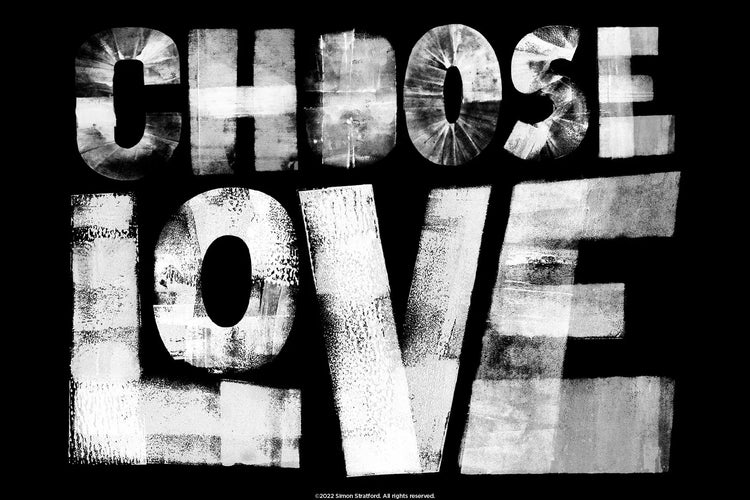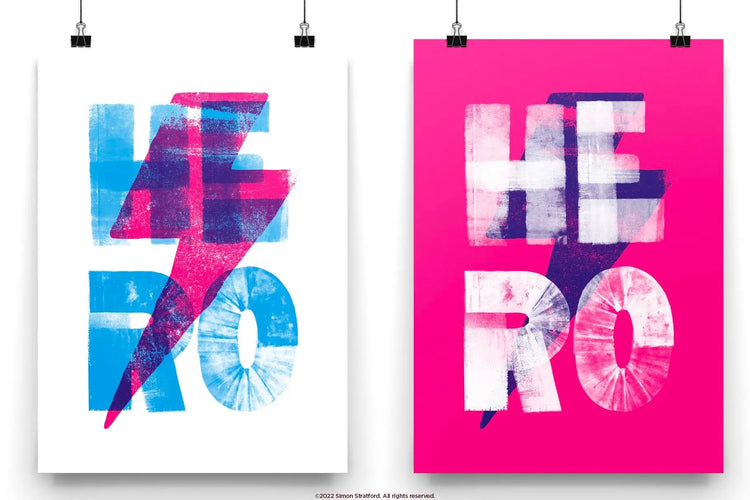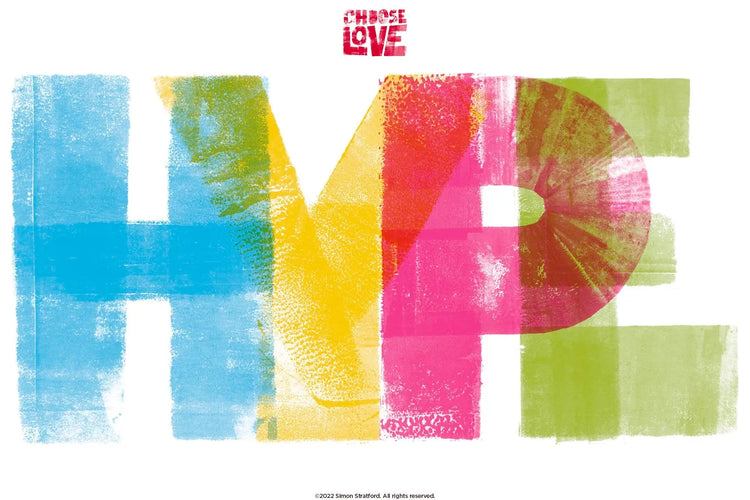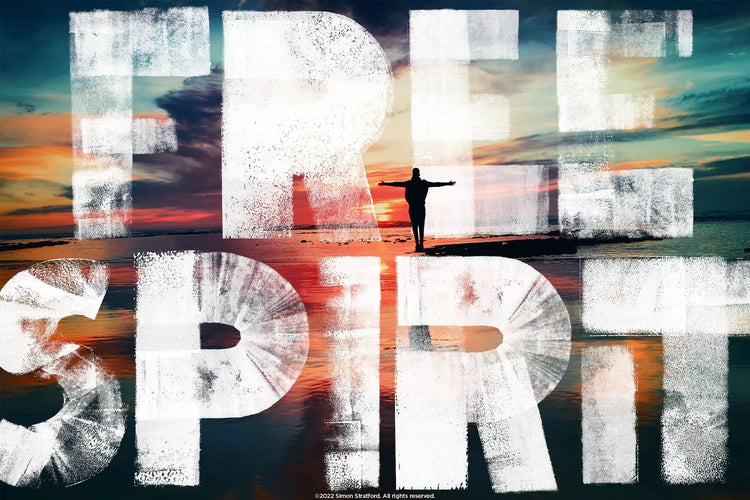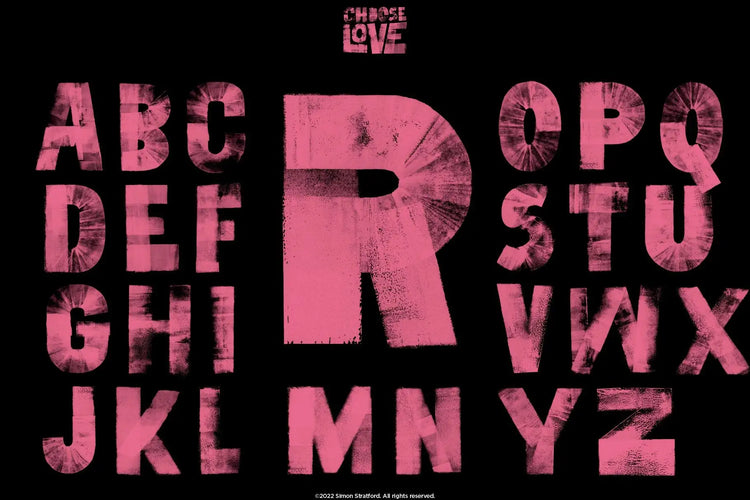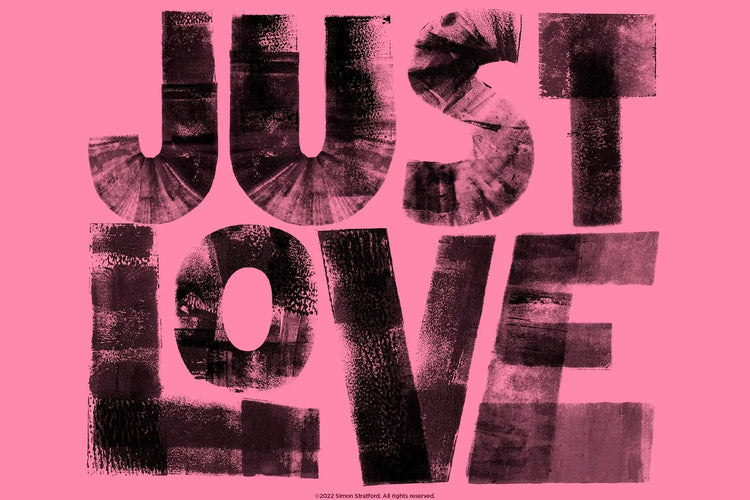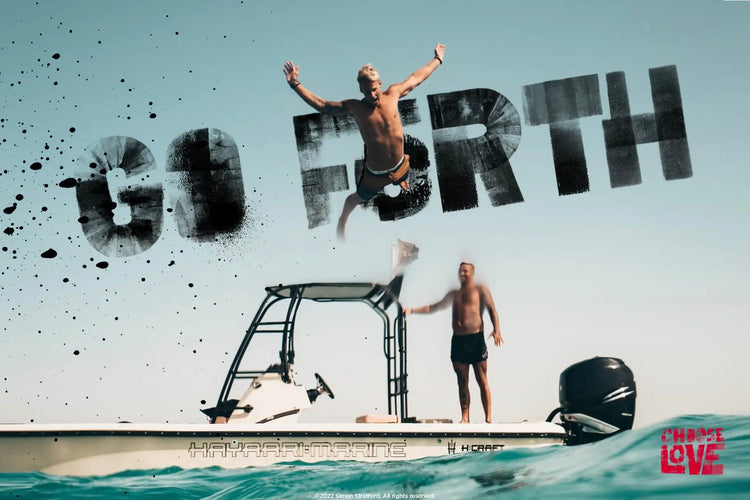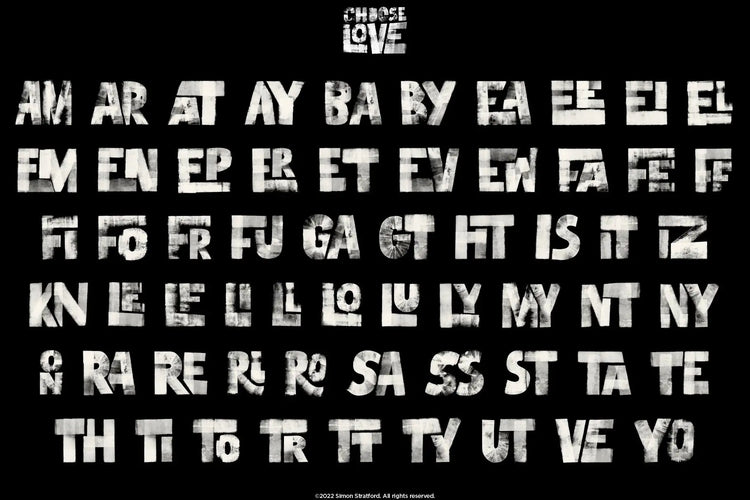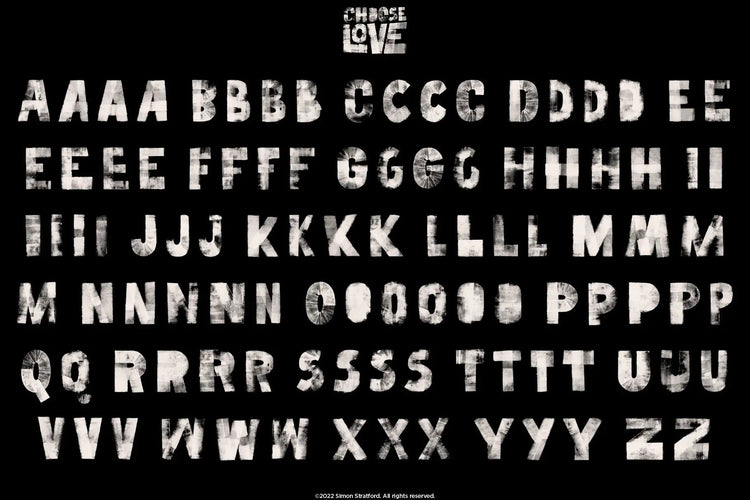
Choose Love Display — Distressed OpenType SVG Colour Font
About Choose Love
Introducing Choose Love, a bold, punk-inspired, dirty ink display typeface crammed full of loverly print details.
The font was created with an ink brayer on paper, so it’s all handmade. I had a lot of fun making it, but now it’s ready to take on the world.
It has a bold attitude, slightly punk in appearance, with an I’ll go anywhere attitude. But, as each letter was hand-printed, it has a ton of imperfections and dirt, and that’s its strength.
Choose Love font has a lot of alternative letters and ligatures, making it even more unique. Mix them, and you can create fantastic type lockups that look like you have printed them yourself.
Choose Love was made for headlines and looks excellent on poster designs, branding and packaging, t-shirts, invitations, books—anything where you want that alternative hand lettering feel.
Alternative Glyphs
Each A to Z letterform has at least three alternatives —The result of those additional characters? First, you can change out repeating letters to make your work look more spontaneous, less repetitive and less like a typeface.
Ligatures
Choose Love also has ligatures. In fact, the ligatures are in their own typeface. You can turn them on via the glyphs panel in Adobe apps or select them via the glyphs panel. The ligatures feature many popular two-letter combinations that make your creations look even more special.
Opentype
Choose Love font includes;
• Three fonts SVG, Ligature and standard
• Uppercase glyphs only (This font is unicase)
• Punctuation and Symbols
• Numbers
• The standard font has support for Central, Western and South-Eastern European characters.
OpenType SVG Bitmap font
Choose Love uses the new OpenType-SVG Bitmap font format. A traditional vector font has one colour and no transparency. Choose Love has complete transparency and thousands of shades of black and grey. In addition, the OpenType-SVG Bitmaps technology gives the font more detail than the old font format.
If Choose Love font were a celebrity
If the Choose Love font were a celebrity, it would be the rebellious and unconventional artist Banksy. Just as Banksy is known for their street art that challenges norms and inspires creativity, Choose Love font captures a similar sense of boldness and artistic expression in the world of typography.
OpenType Features: Stylistic Alternates, Ligatures